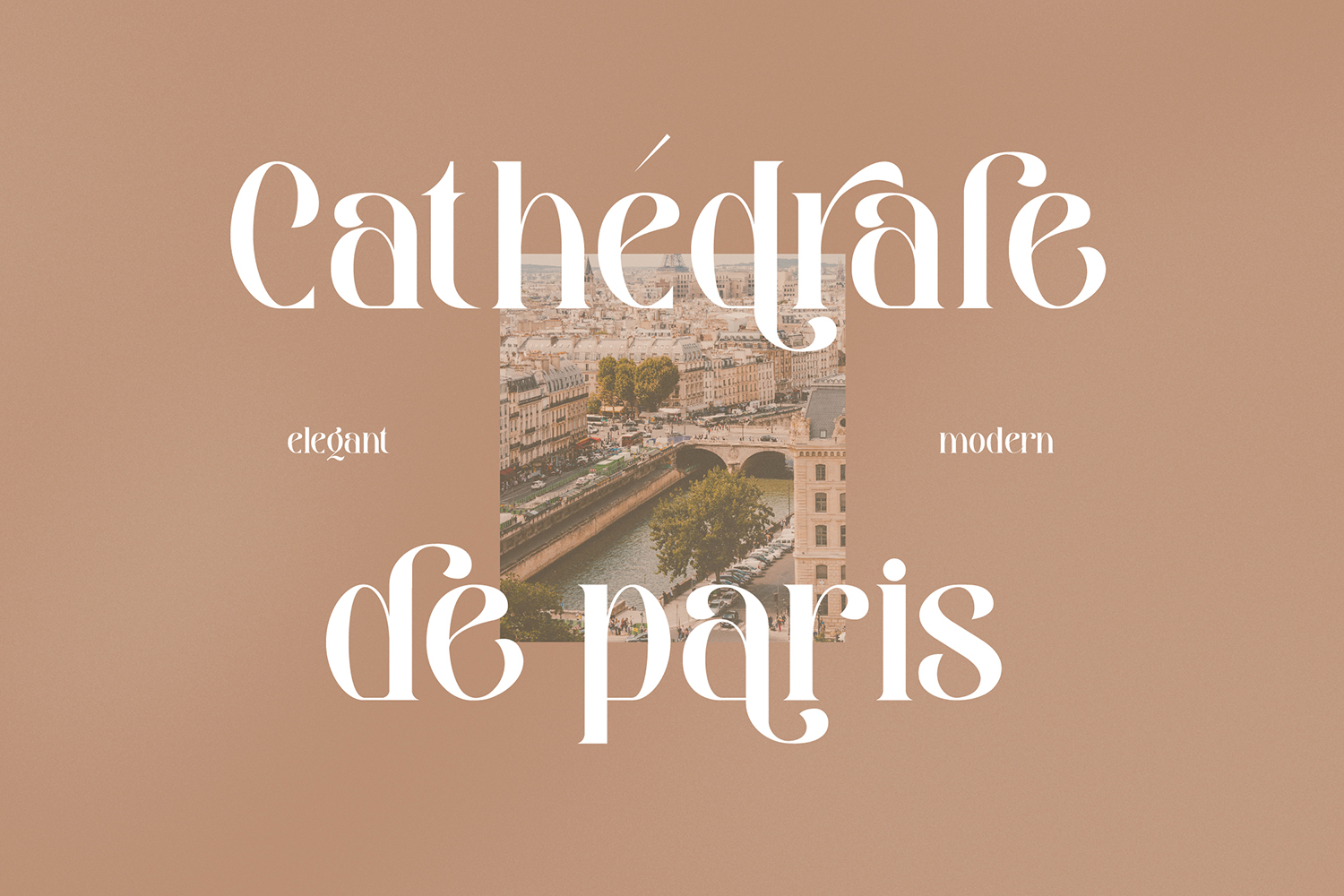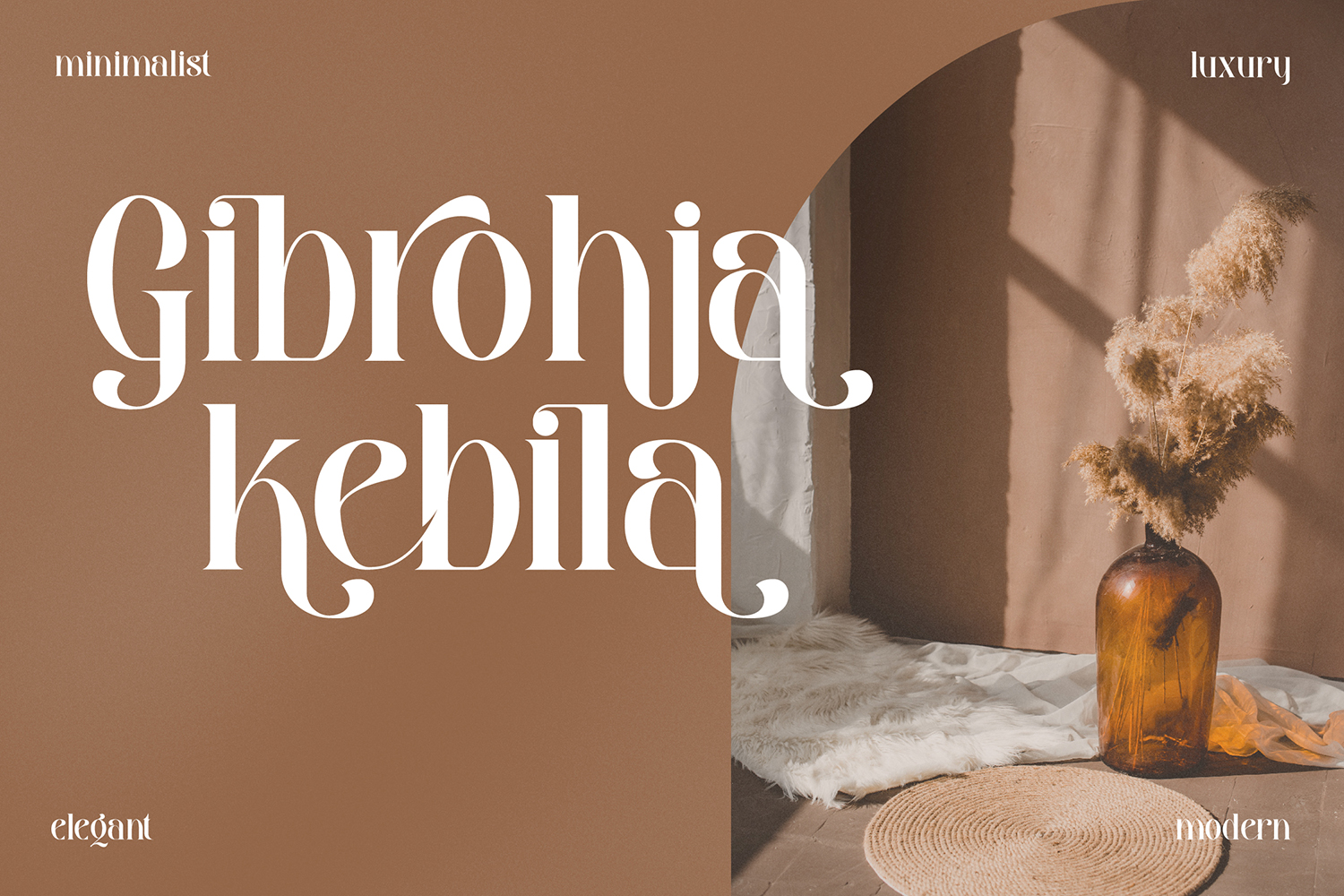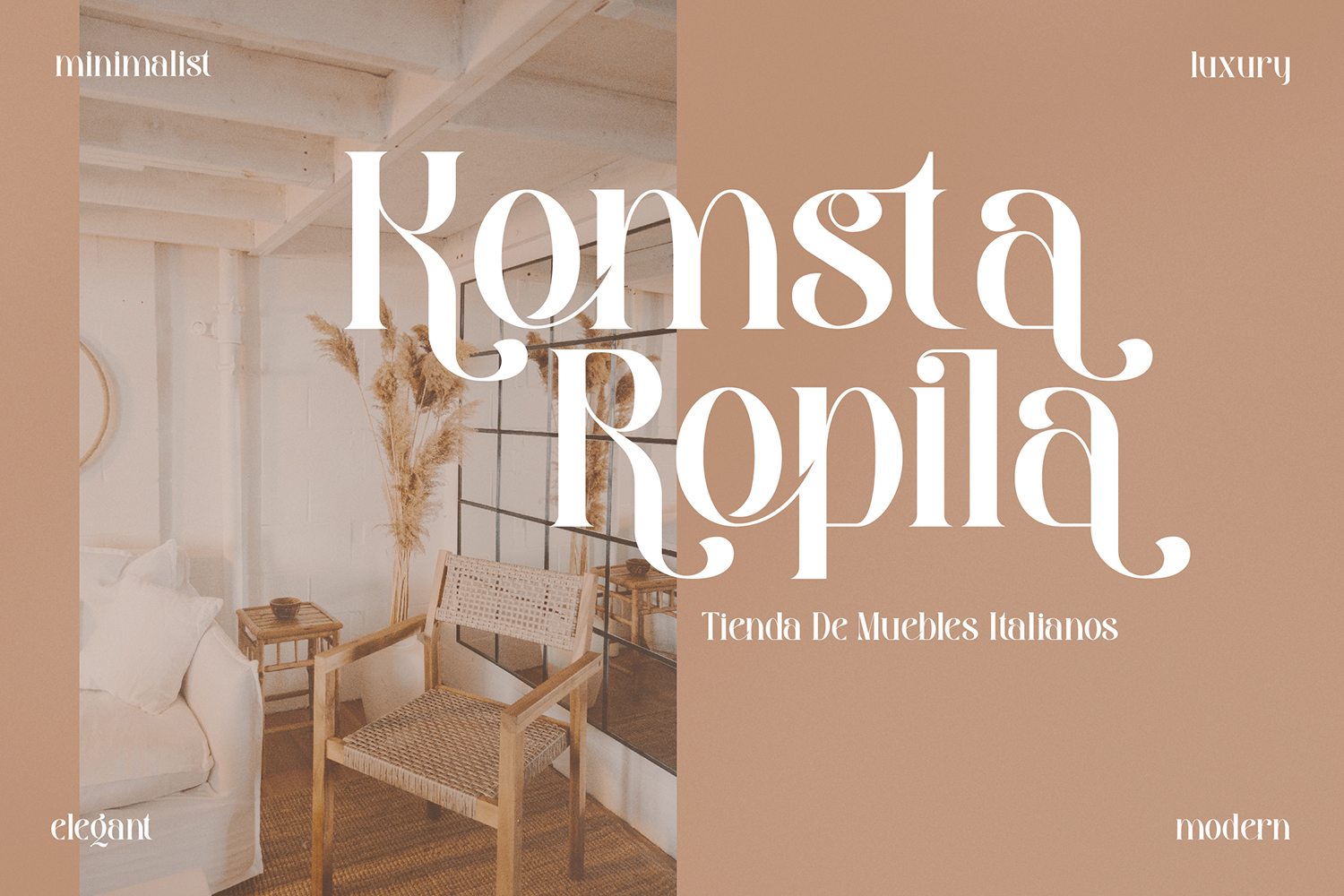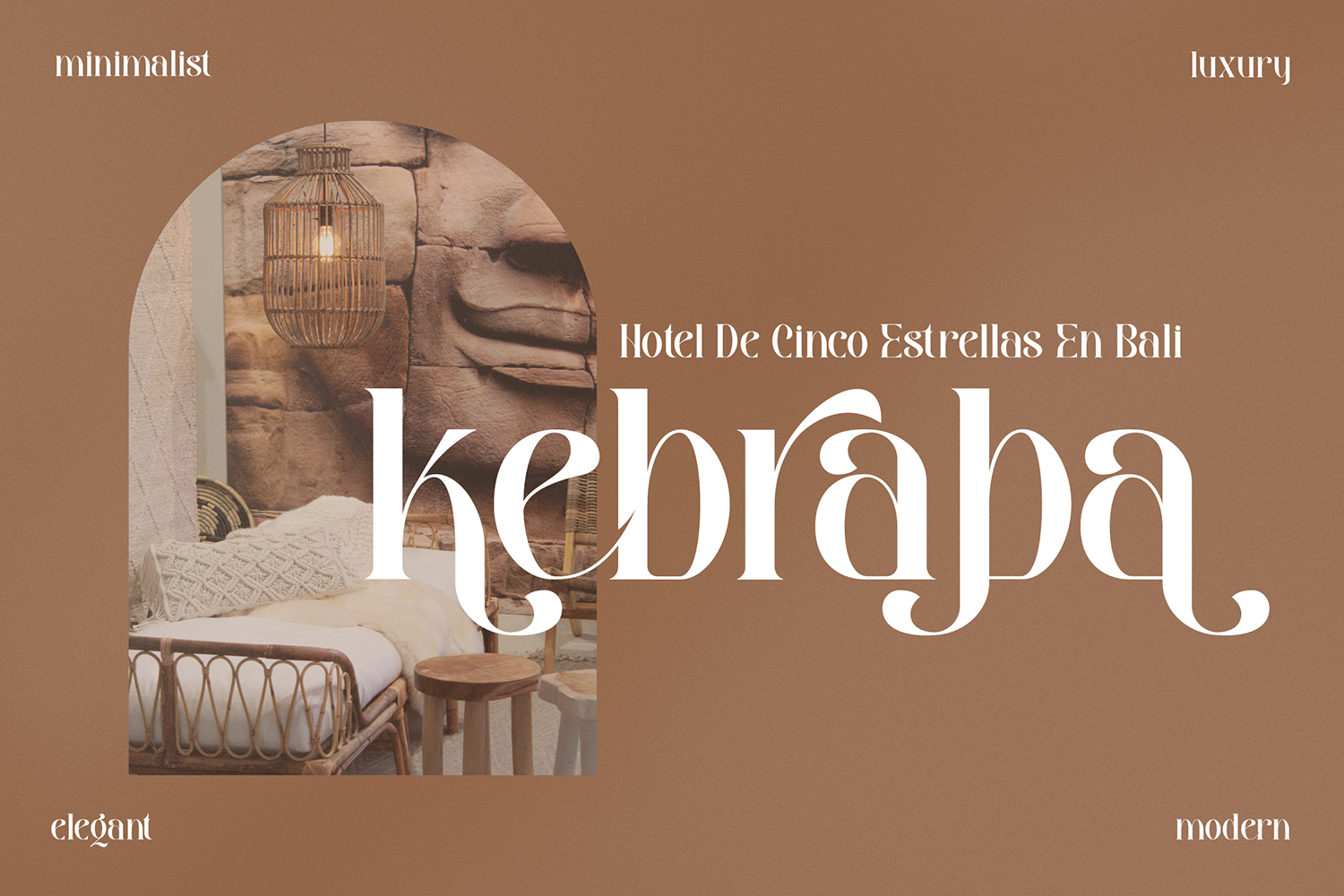
Gibroma Free Font
Introducing Gibroma Free Font – a blend of modernity and classic elegance in a serif typeface, exuding its distinct style and contemporary appeal. Ideal for creating sophisticated and luxurious logos, designing book or movie titles, fashion brands, magazines, clothing, lettering, quotes, and a plethora of other creative applications. This free typeface was designed by a talentedΒ Storytype Studio. If you like it don’t forget to check out the full version.